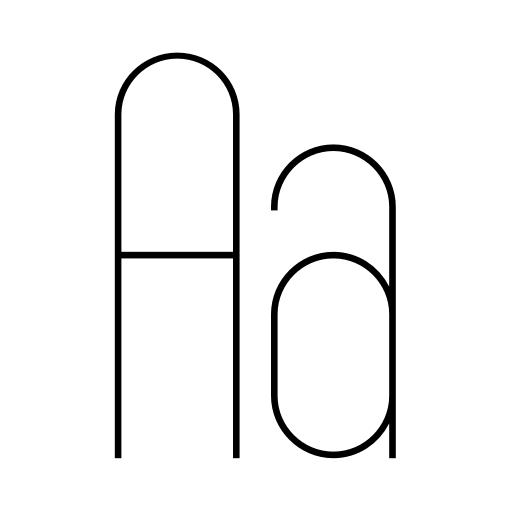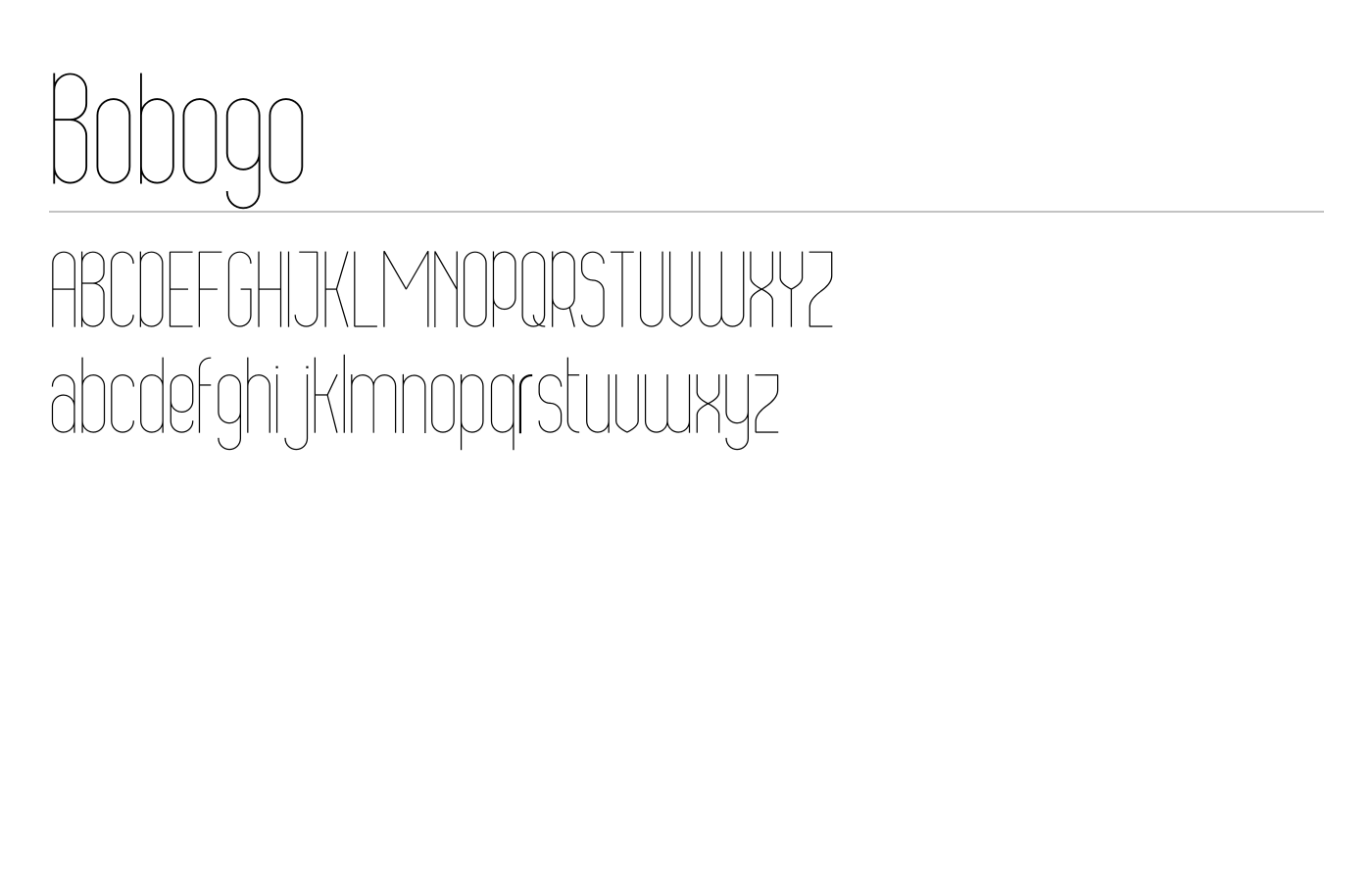
Bobogo is an ultra-thin, tall sans serif font with a modern, minimalist aesthetic. Its delicate lines and narrow letterforms create an elegant and airy feel, perfect for stylish headlines and contemporary branding. This font works well in fashion, editorial, and creative projects where a sleek, sophisticated look is desired.
Bobogo Font
About Bobogo Font